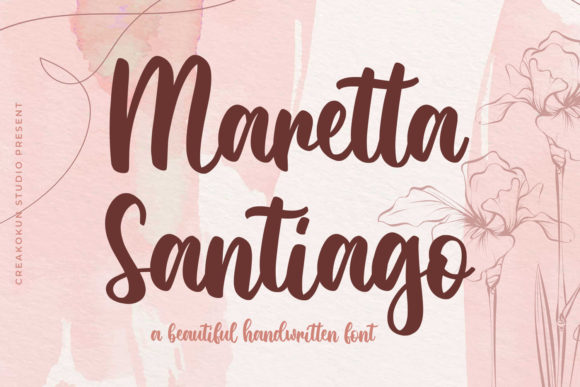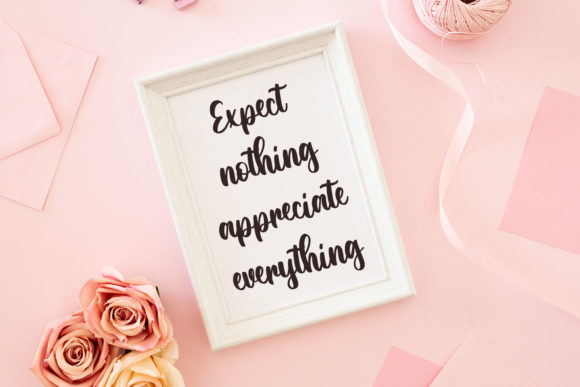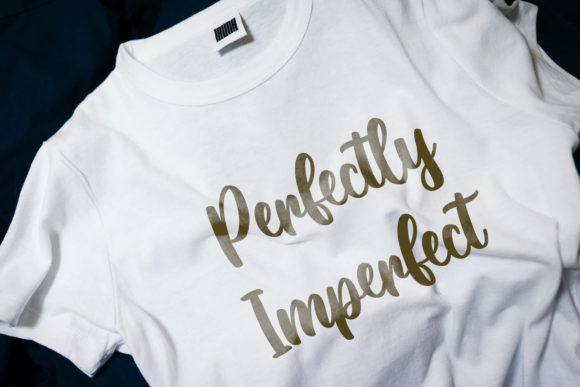
Maretta Santiago Font
About Maretta Santiago Font
Maretta Santiago is a sweet and beautiful script font. Fall in love with its cute and joyful style and use it to create gorgeous wedding invitations, beautiful stationary art, eye-catching social media posts, and much more!